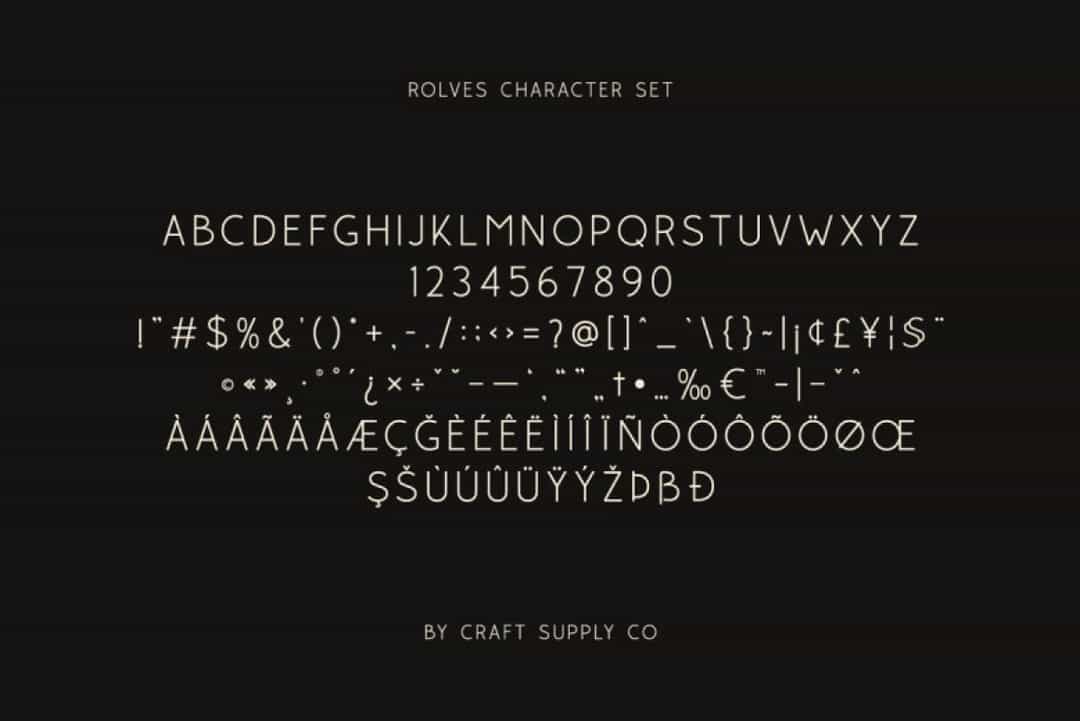
Rolves is a contemporary sans serif typeface inspired by modern sans serif styles. Its distinct features include lower contrast in strokes and slightly rectangular forms as well as its focus on businesslike simplicity.